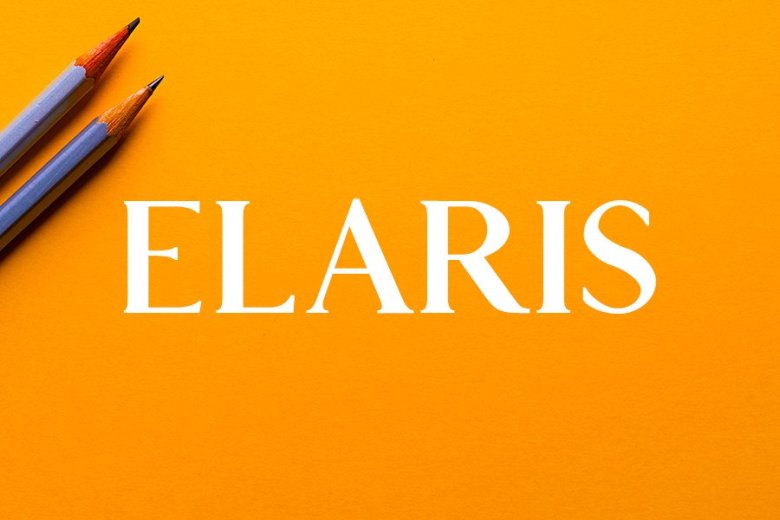
Elaris Serif Font
Are you looking for a Serif font for a new design project, or would you like to have a collection of high end fonts? Introducing Elaris Serif Font! Elaris Serif designed by Paul van Oijen. Elaris is a dashing, high-class serif font. Featuring flowing letterforms, wide language support and lots of character, Elaris is the perfect font for headlines, titles, magazine headings and logo’s. Elaris is a tribute to the typographic traditions of the past and step a brighter, more elegant future.